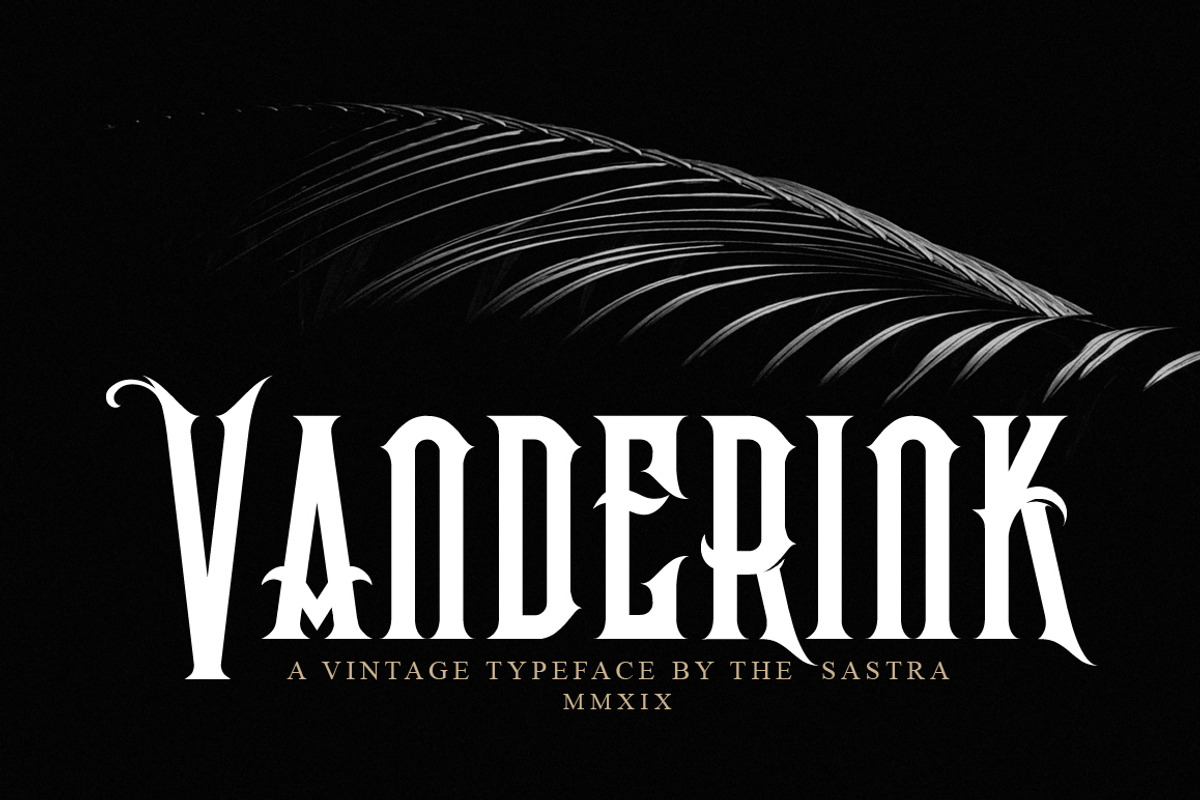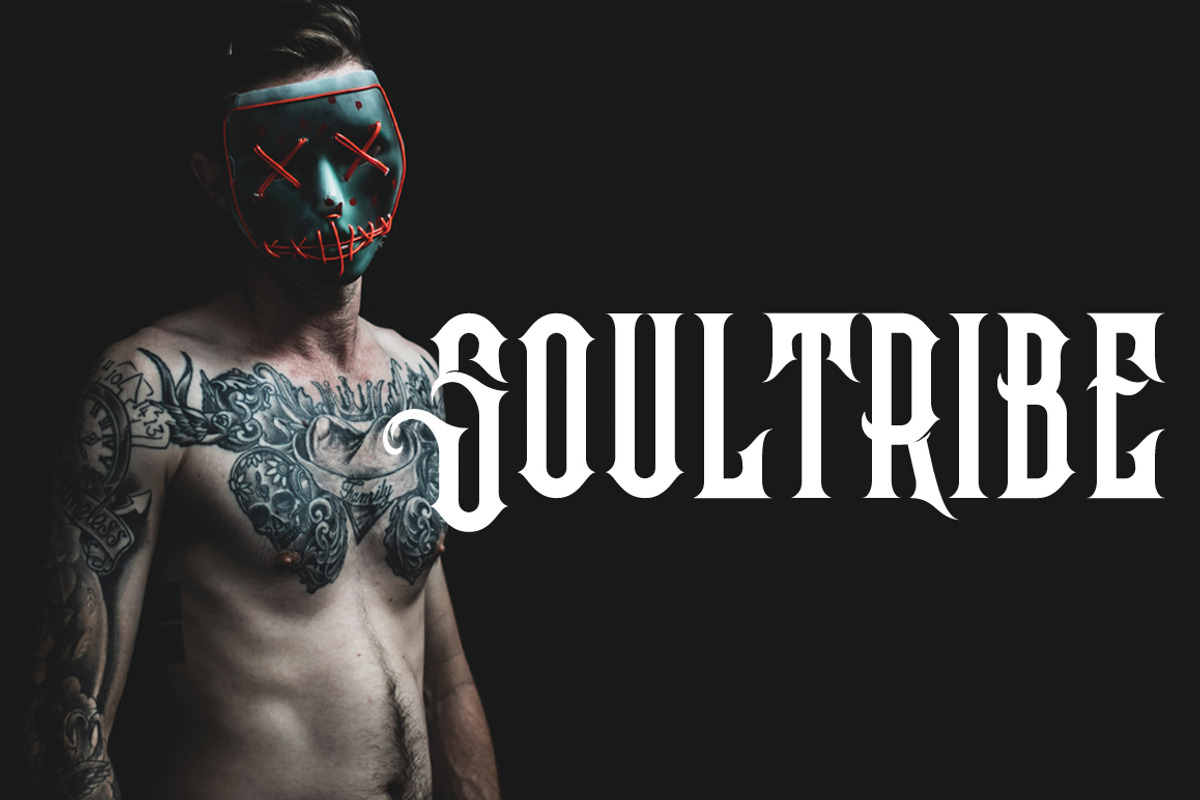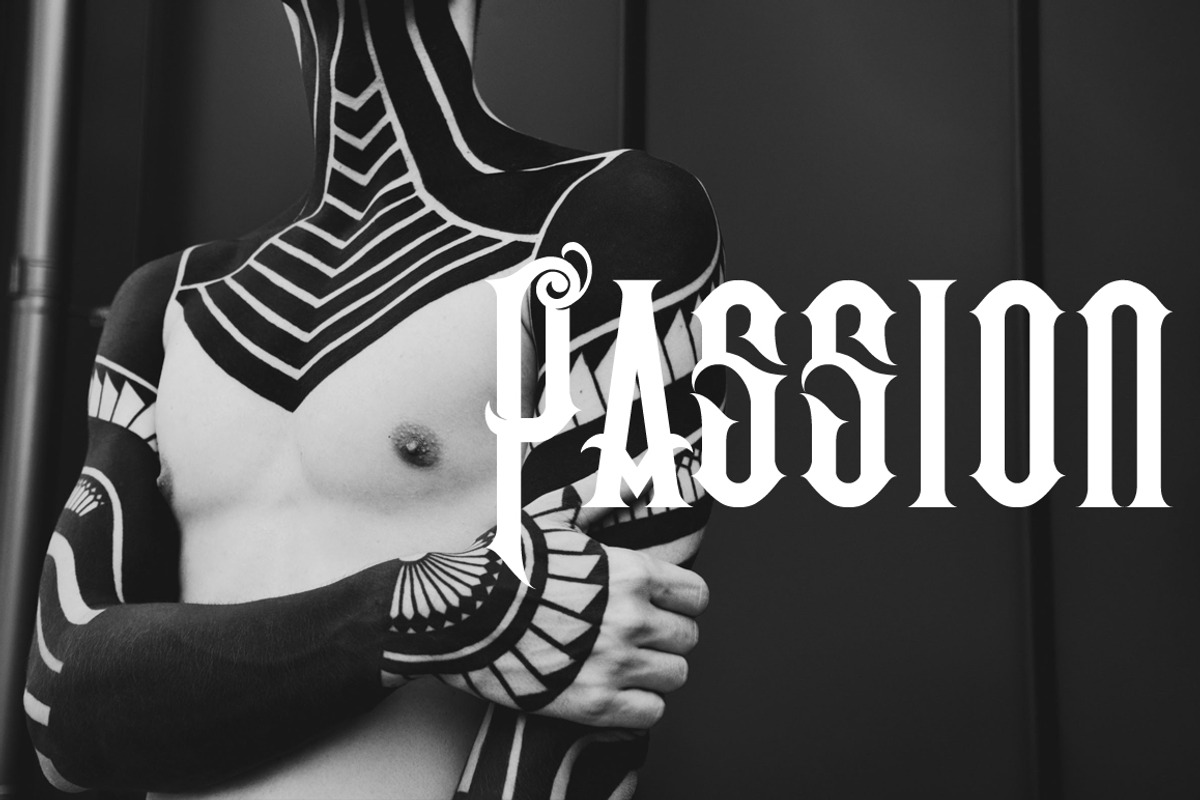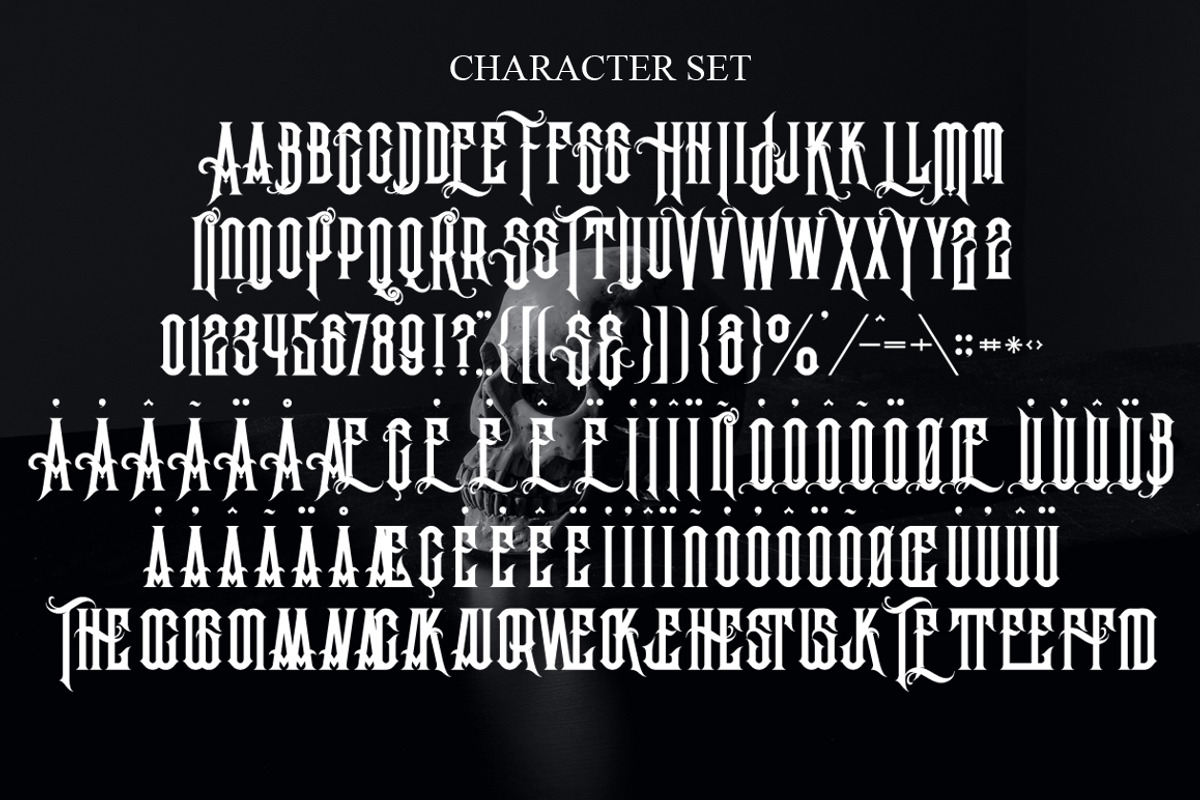
Vanderink
This Vanderink font is inspired by Traditional, tribe, ink and Tattoo. Vanderink font is perfect for badges, branding, labels, apparel, headlines, signage, logo, quote, apparel and other creative applications. Includes these files: Vanderink. OTF & TTF